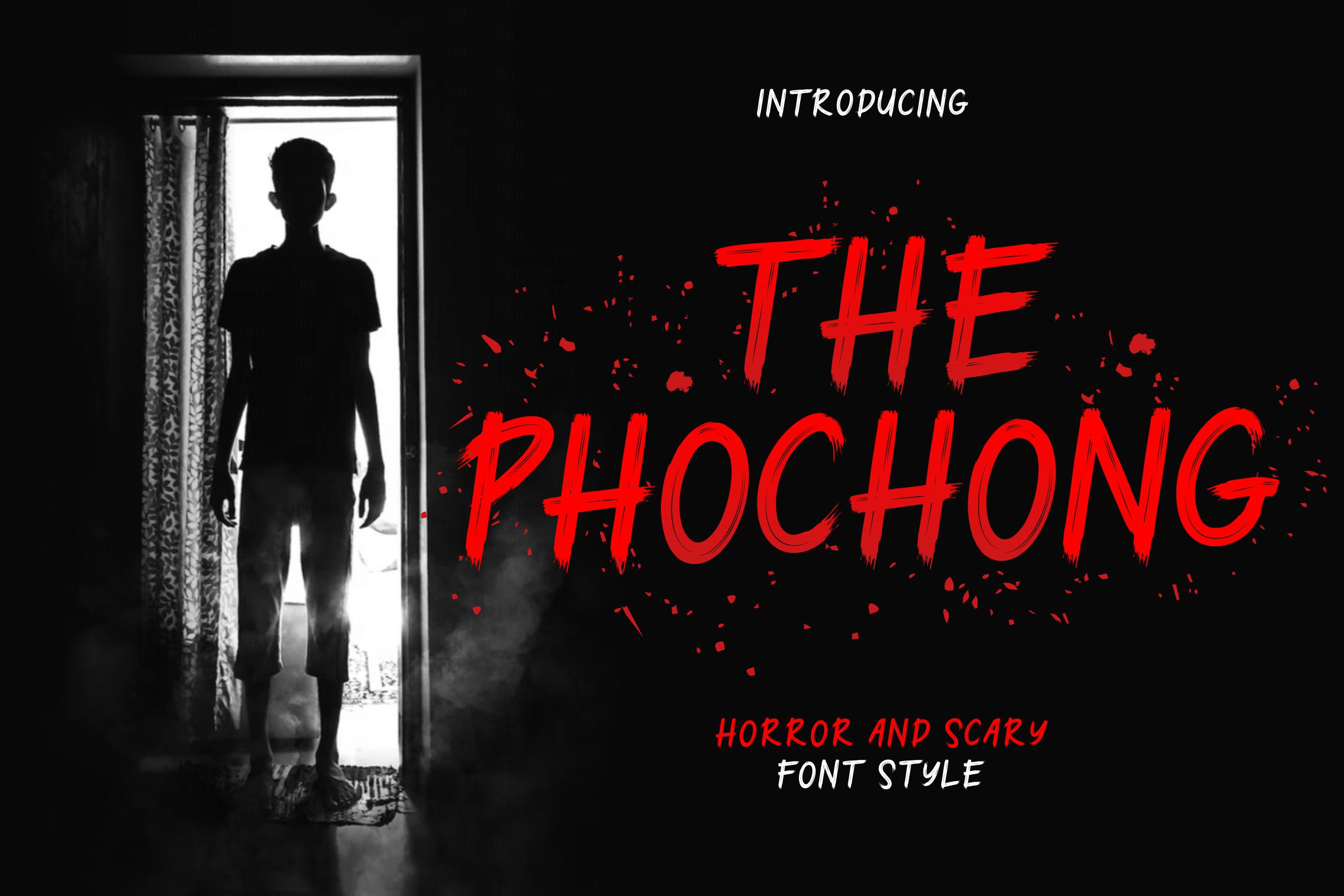
The Phochong Font
Presenting our new product The Phochong Font - Modern Font is a bold and authentic display font. This font is perfect for any branding project such as logos, t-shirt printing, creative products, and more. extraordinary in a variety of contexts.